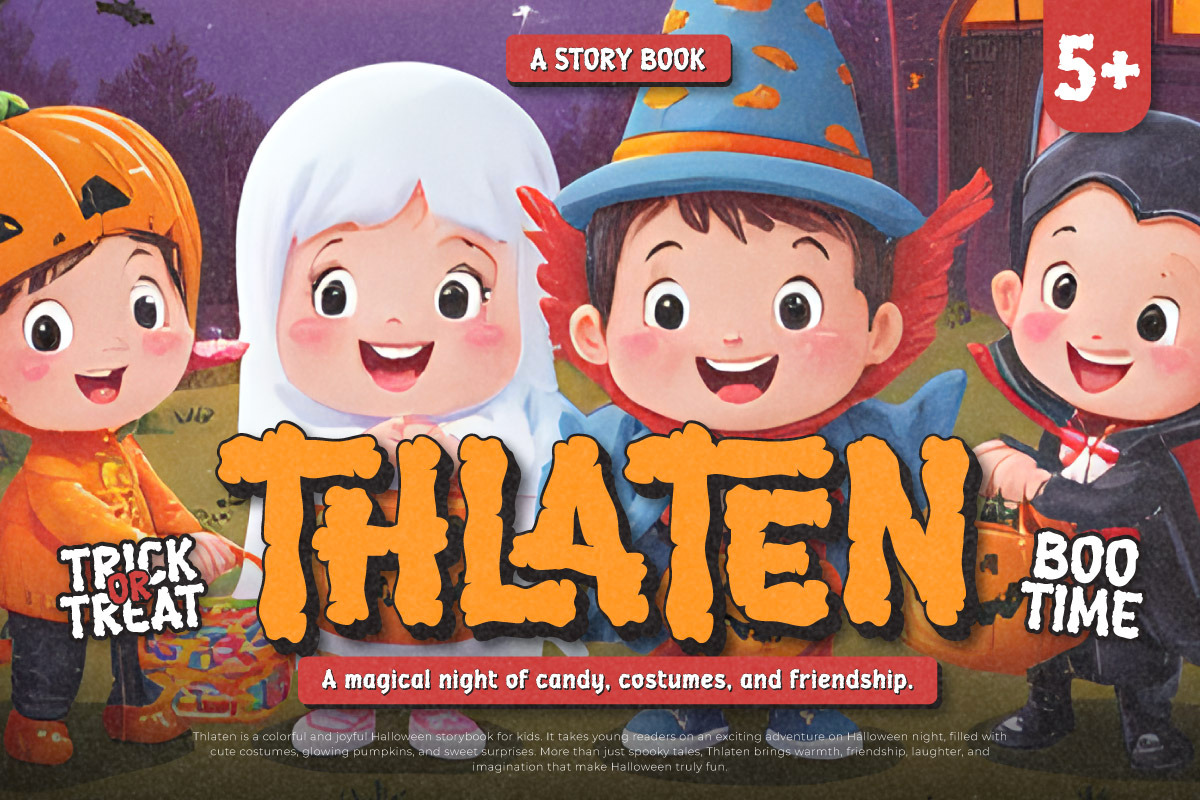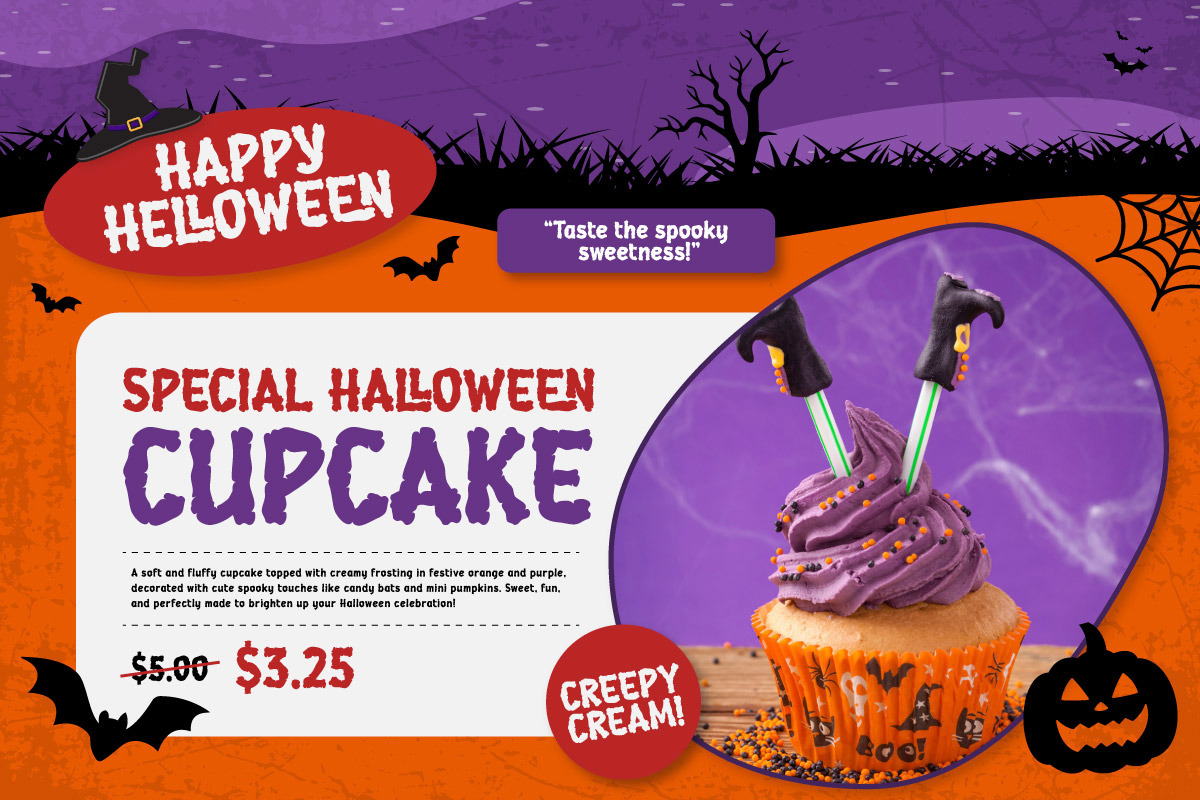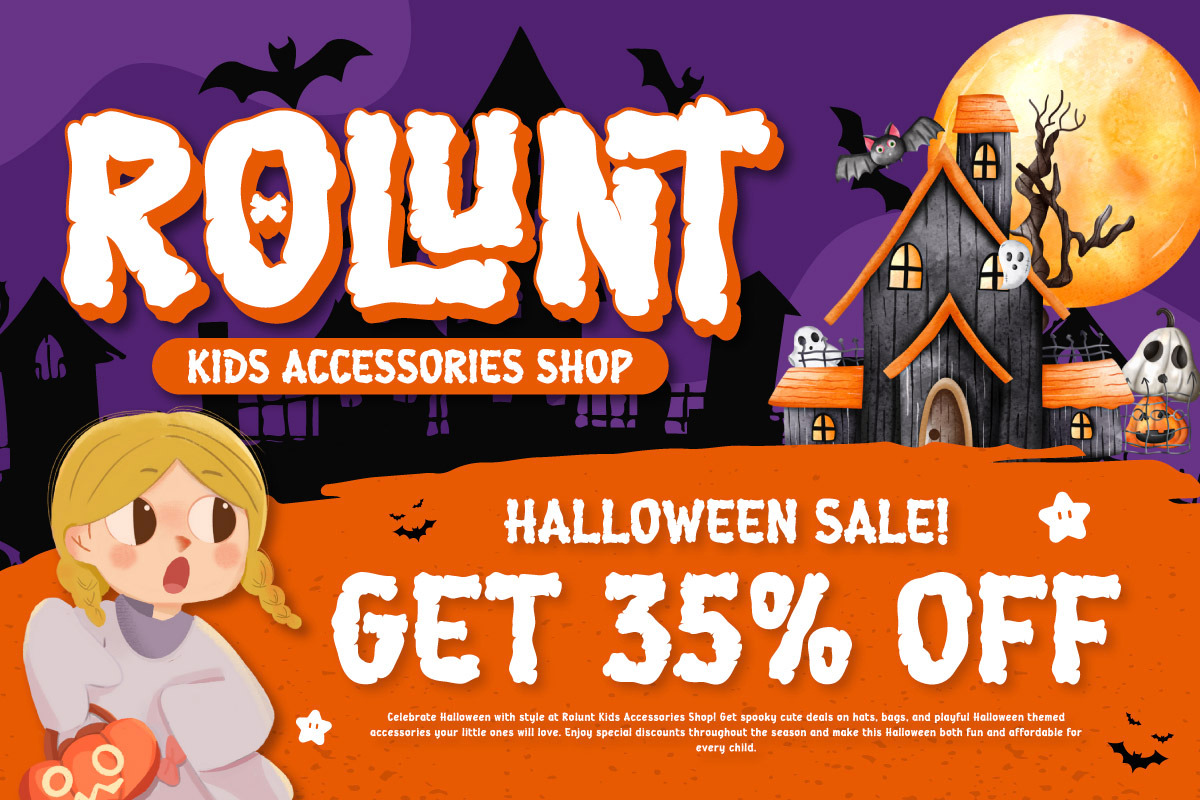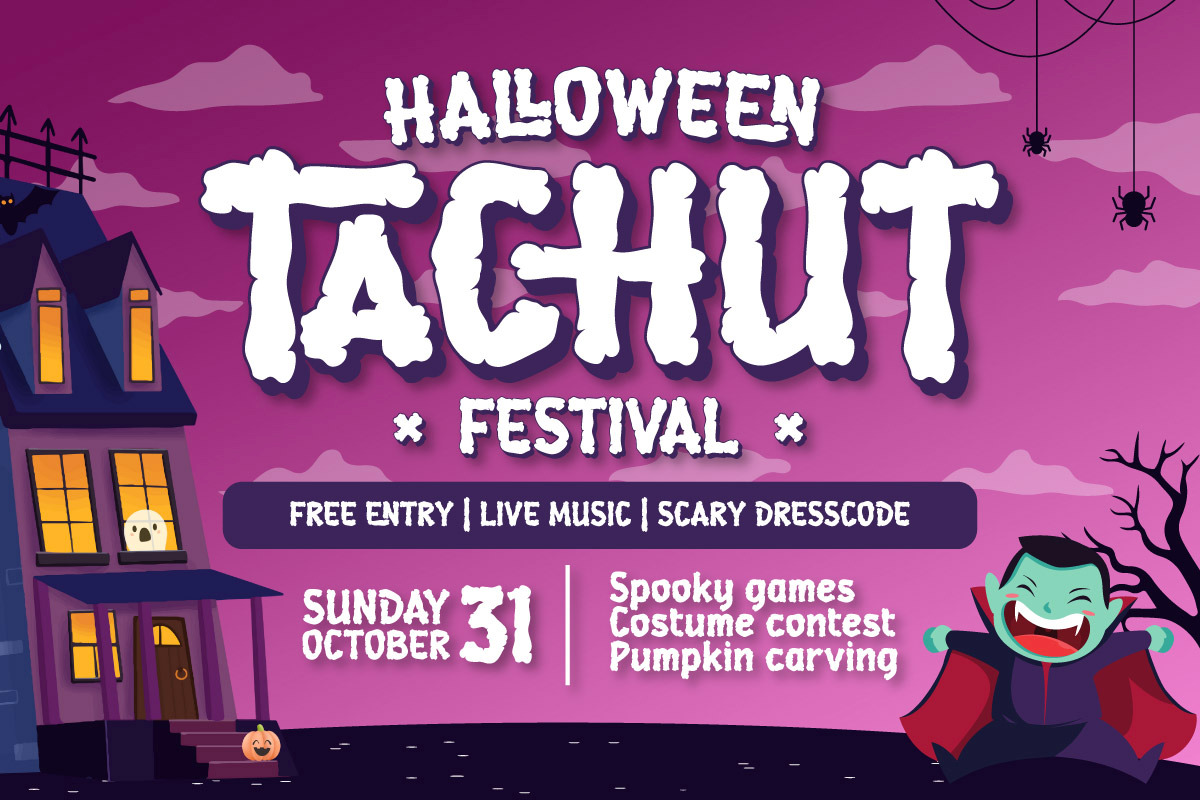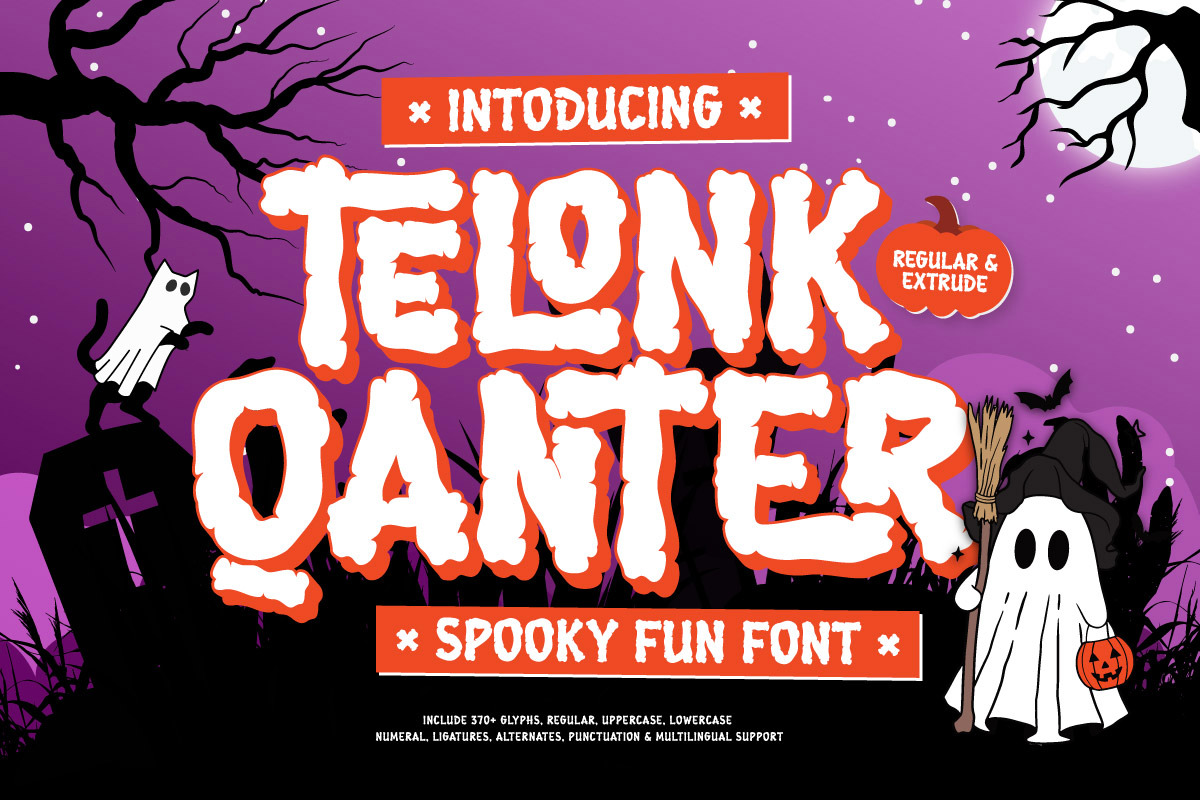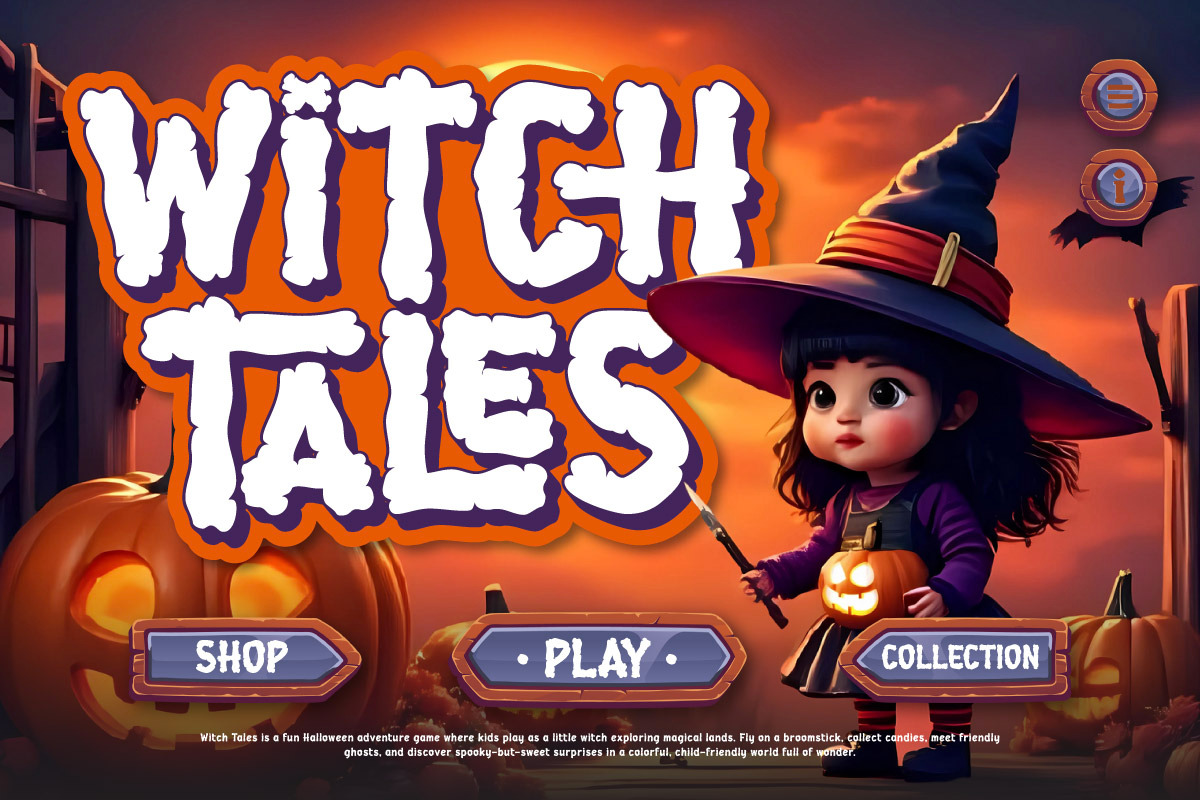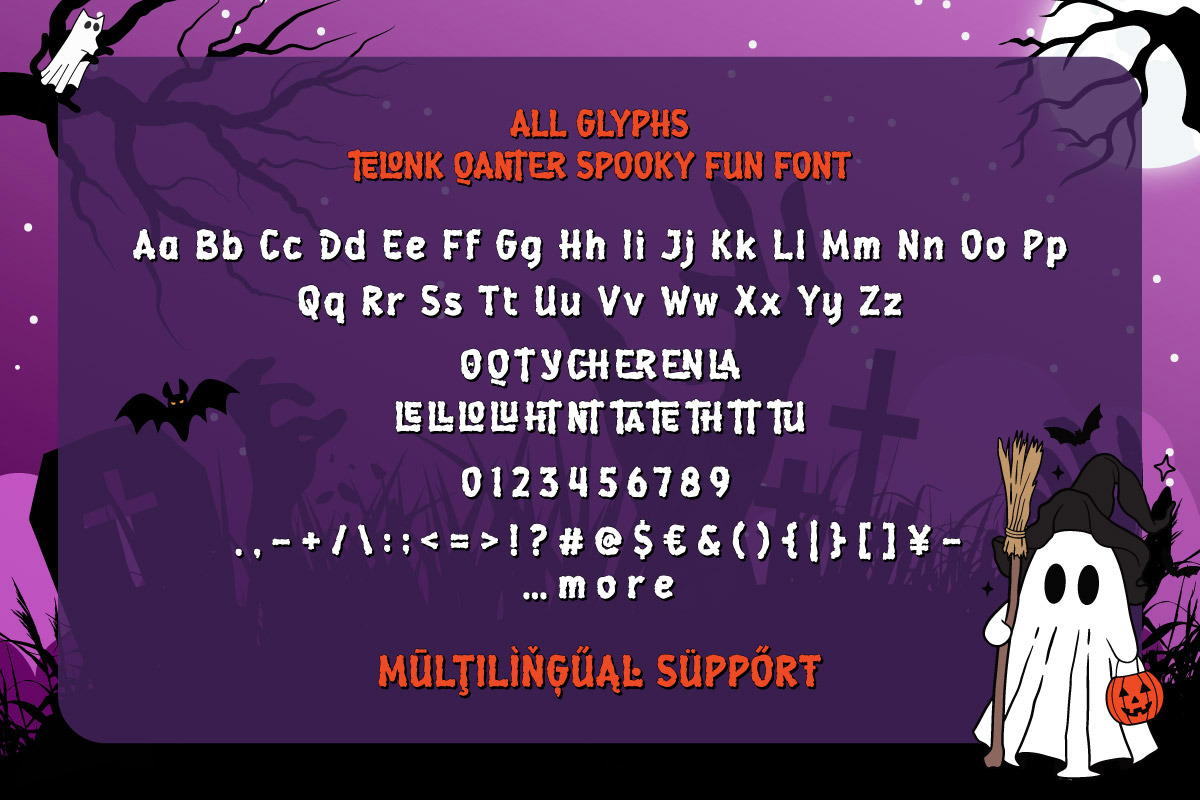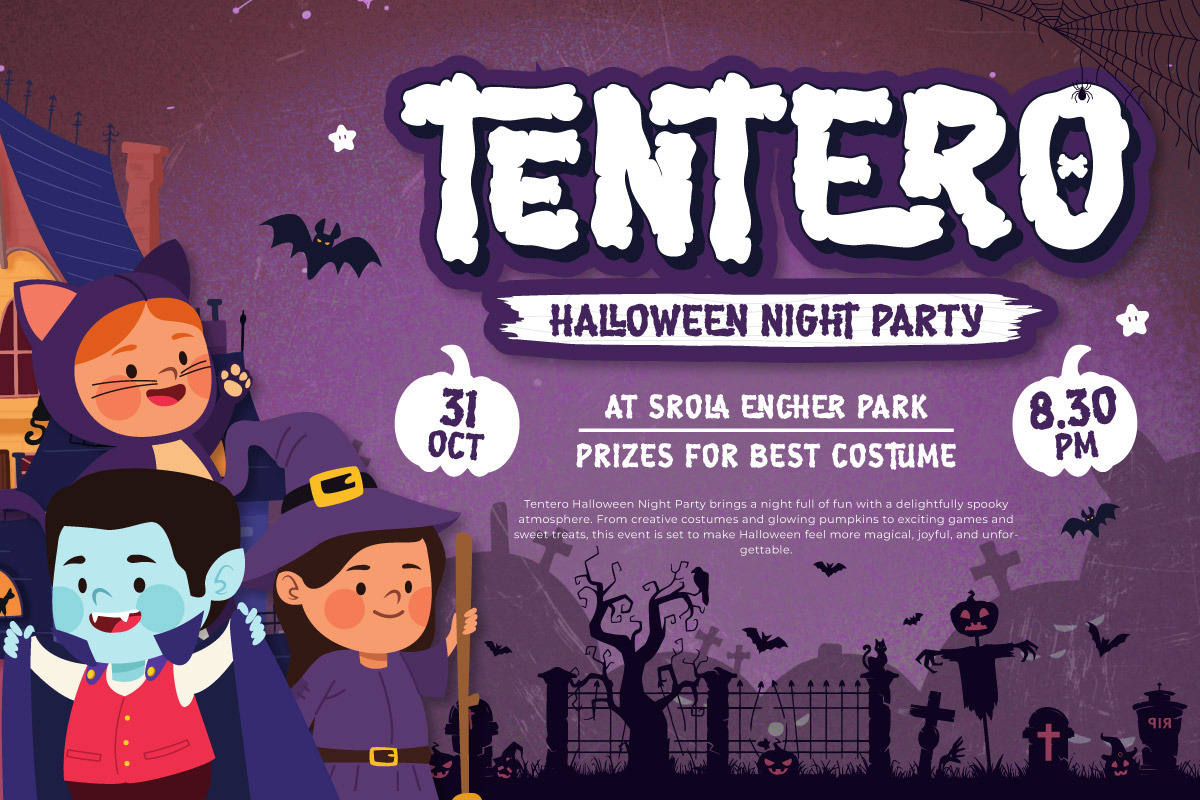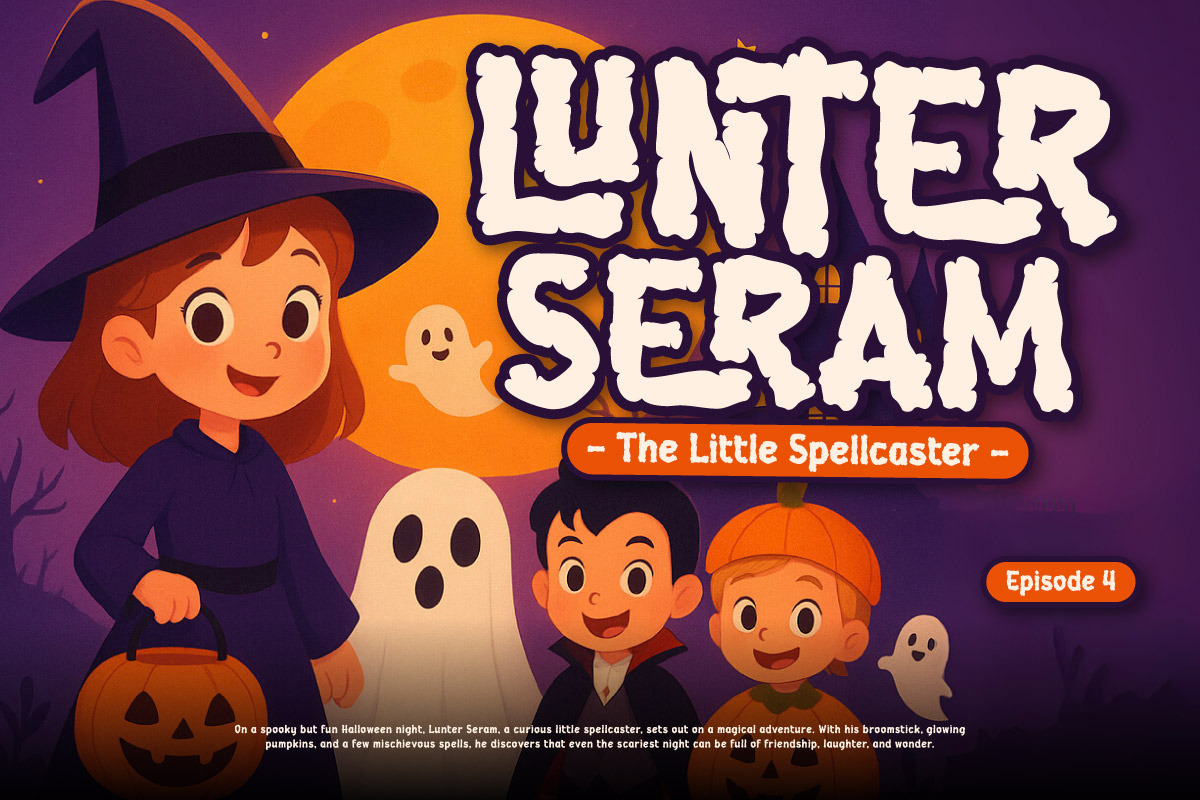
Telonk Qanter - Spooky Fun Font
Telonk Qanter is a spooky yet playful display font designed to bring Halloween vibes and creepy charm to your projects. With its bold, bouncy, and drippy letterforms, this font is perfect for creating haunted house flyers, trick-or-treat invitations, spooky party posters, game titles, YouTube thumbnails, and seasonal merchandise.
The font comes with Regular and Extrude styles, giving you the flexibility to create layered effects for extra depth and dimension. It includes uppercase, lowercase, numbers, punctuation, ligatures, alternates, and multilingual support—making it a versatile choice for both print and digital designs.
If you’re working on Halloween-themed graphics, spooky branding, or any project that needs a dose of ghostly fun, Telonk Qanter will make your typography scream with style.
- Multilingual Support: Fully supports 85+ languages, including: Afrikaans, Albanian, Asu, Basque, Bemba, Bena, Breton, Catalan, Chiga, Cornish, Croatian, Czech, Danish, Dutch, Embu, English, Esperanto, Estonian, Filipino, Finnish, French, Friulian, Galician, Gusii, Hungarian, Indonesian, Irish, Italian, Kabuverdianu, Kalenjin, Kamba, Kikuyu, Kinyarwanda, Latvian, Lithuanian, Lower Sorbian, Luo, Luxembourgish, Luyia, Machame, Makhuwa-Meetto, Makonde, Malagasy, Maltese, Manx, Meru, Morisyen, North Ndebele, Norwegian Bokmål, Norwegian Nynorsk, Nyankole, Oromo, Polish, Portuguese, Quechua, Romanian, Romansh, Rombo, Rundi, Rwa, Samburu, Sango, Sangu, Scottish Gaelic, Sena, Serbian, Shambala, Shona, Slovak, Slovenian, Soga, Somali, Spanish, Swahili, Swedish, Swiss German, Taita, Teso, Turkish, Upper Sorbian, Uzbek (Latin), Volapük, Vunjo, Walser, Zulu.